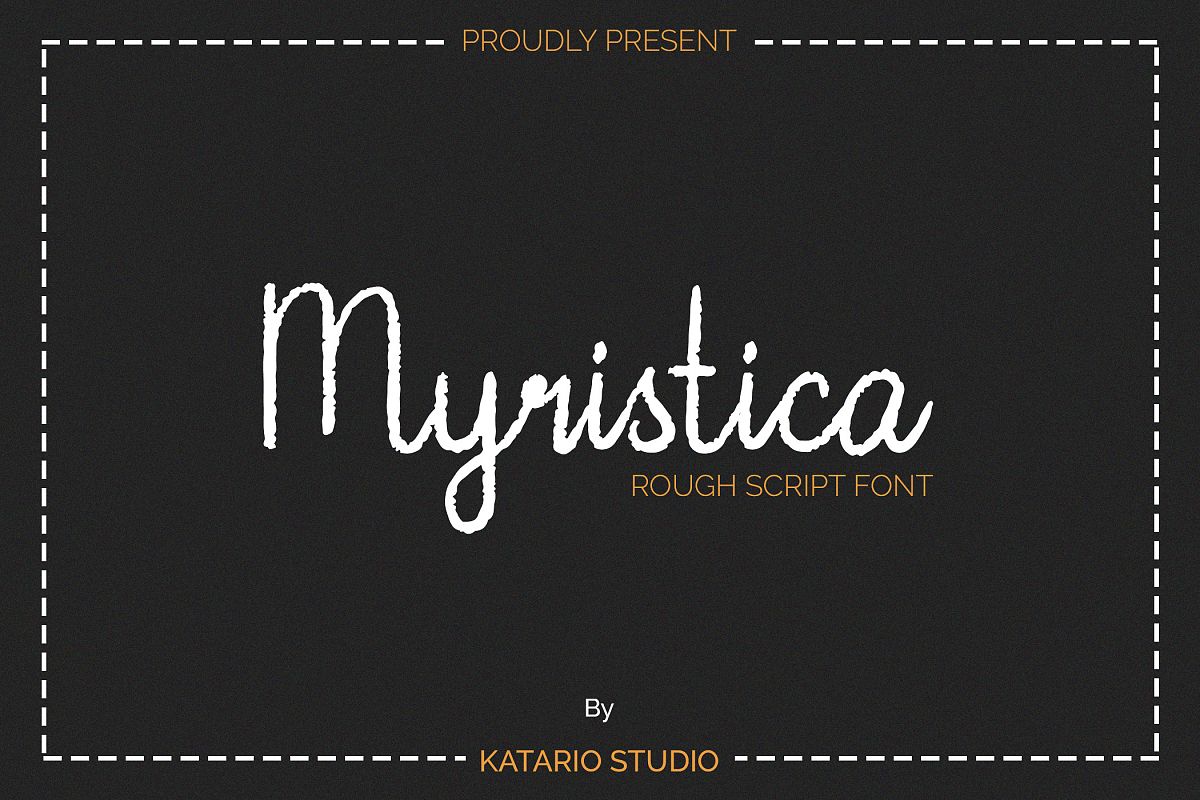
Myristica
Katario Studio Presents:
Myristica Font
Beautiful rough-roundy script font that suitable for any projects you have. Especially for your brand, logo, wedding, music event.